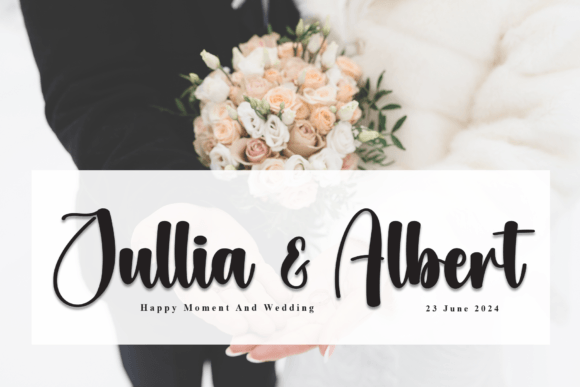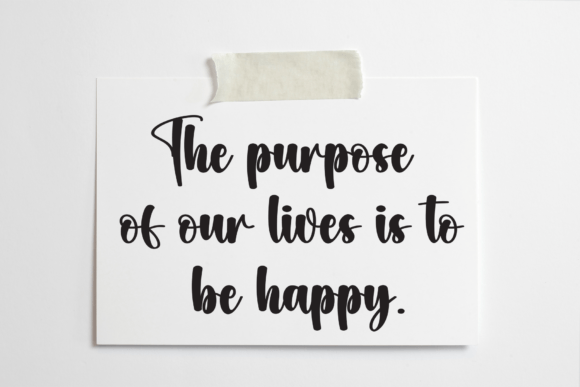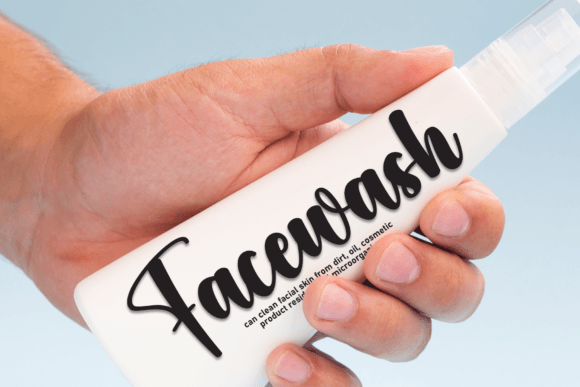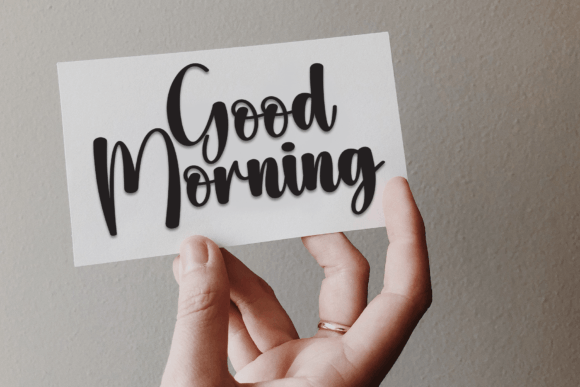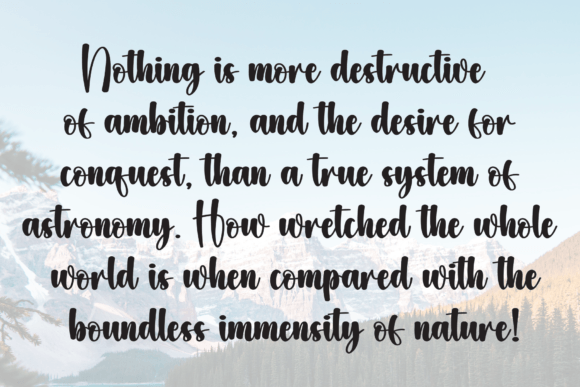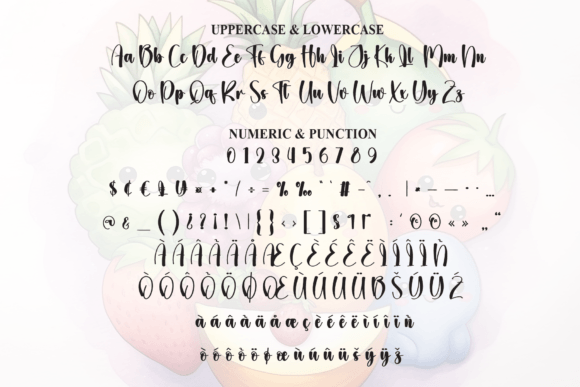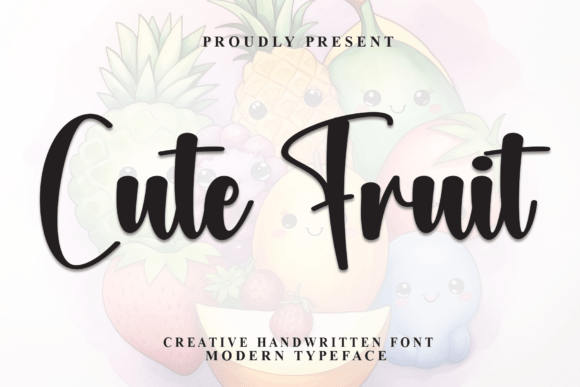
Cute Fruit Font: Add a Playful Touch to Your Designs
Are you looking for a font that can add a cheerful and playful touch to your designs? Look no further than the Cute Fruit Font! This delightful font is perfect for designers, crafters, and anyone who wants to add a bit of whimsy to their work. In this article, we’ll take a closer look at the Cute Fruit Font, its features, and how you can use it to elevate your designs.
What is Cute Fruit Font?
Cute Fruit Font is a playful, bold font that looks like it was written by hand. Its fun and friendly design makes it perfect for adding a cheerful touch to your designs. The font is reminiscent of childhood scribbles, making it an excellent choice for projects that require a playful and youthful vibe.
Key Features of Cute Fruit Font
- Playful and Bold Design: The Cute Fruit Font has a bold and playful design that is sure to grab attention.
- Handwritten Look: The font has a handwritten look that gives it a personal and friendly feel.
- Easy to Read: Despite its playful design, the Cute Fruit Font is easy to read, making it perfect for use in a variety of projects.
- Versatile: The font is versatile and can be used in a range of projects, from digital designs to print materials.
Who Can Use Cute Fruit Font?
The Cute Fruit Font is perfect for a range of designers and crafters, including:
- Graphic Designers: Graphic designers can use the Cute Fruit Font to add a playful touch to their designs, from brochures to social media graphics.
- Crafters: Crafters can use the font to create fun and playful designs for their craft projects, from scrapbooking to card making.
- Digital Artists: Digital artists can use the Cute Fruit Font to add a whimsical touch to their digital art.
- Small Business Owners: Small business owners can use the font to create fun and playful branding materials, from logos to packaging.
How to Use Cute Fruit Font?
Using the Cute Fruit Font is easy! Here are a few tips to get you started:
- Pair it with Other Fonts: Pair the Cute Fruit Font with other fonts to create a unique and interesting design.
- Use it for Headings: Use the Cute Fruit Font for headings and titles to add a playful touch to your designs.
- Add Color: Add color to your design to make the Cute Fruit Font really pop.
- Experiment with Different Sizes: Experiment with different sizes to see how the font looks in different contexts.
Benefits of Using Cute Fruit Font
There are many benefits to using the Cute Fruit Font, including:
- Unique Design: The Cute Fruit Font has a unique design that will help your designs stand out.
- Versatile: The font is versatile and can be used in a range of projects.
- Fun and Playful: The Cute Fruit Font adds a fun and playful touch to your designs, making them more engaging and interesting.
The Cute Fruit Font is a playful, bold font that is perfect for adding a cheerful touch to your designs. Its fun and friendly design makes it perfect for a range of projects, from digital designs to print materials. With its easy-to-use design and versatile nature, the Cute Fruit Font is a great addition to any designer’s toolkit. So why not give it a try and see how it can elevate your designs?